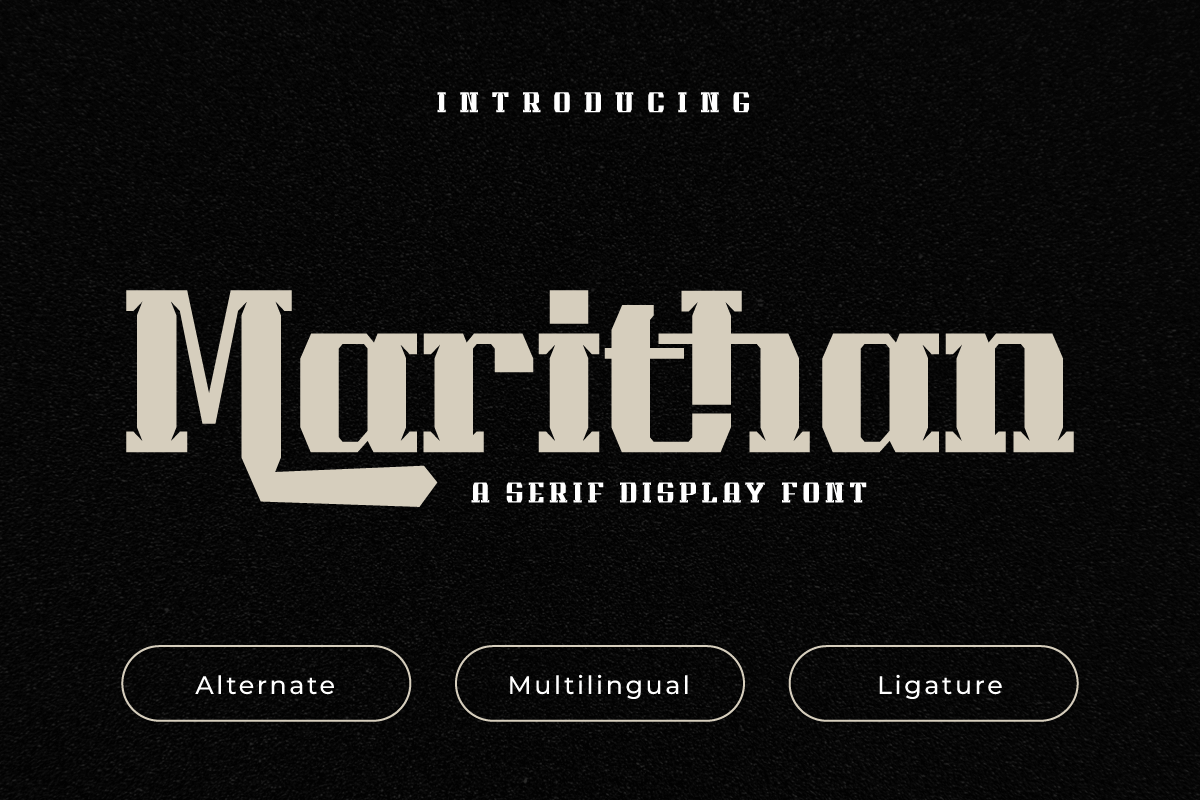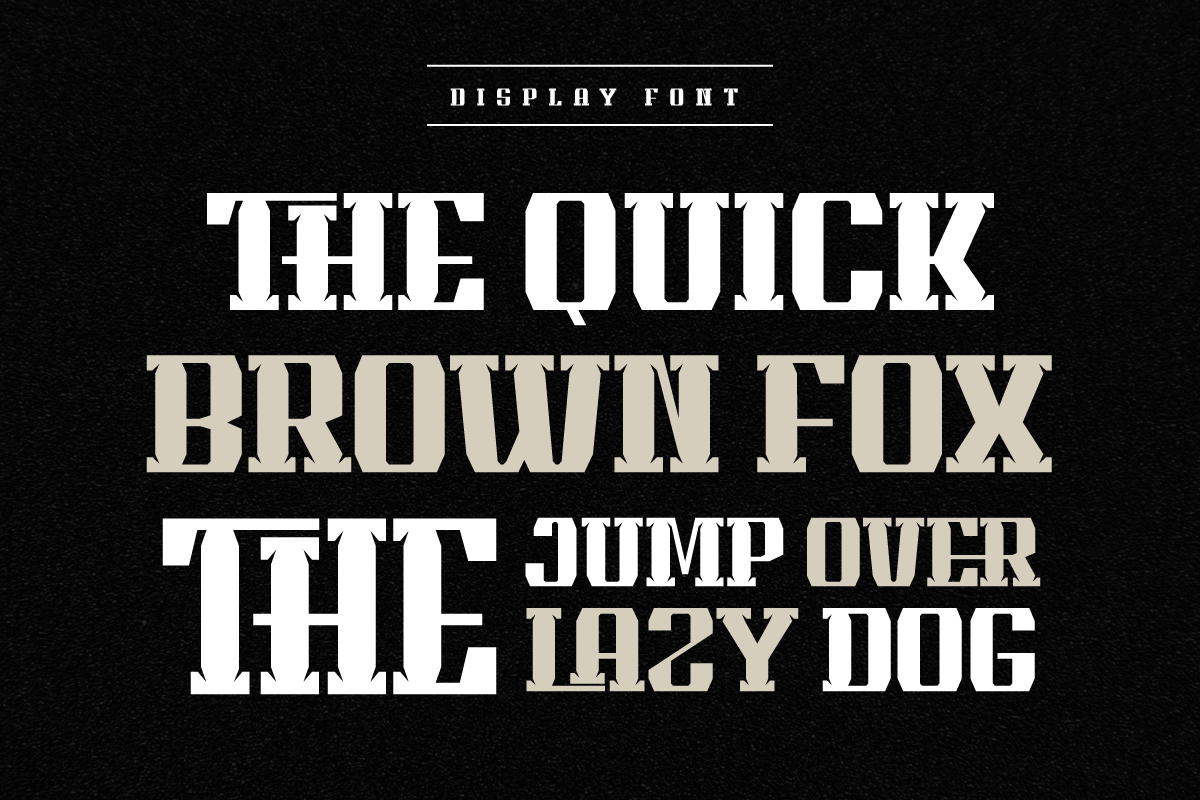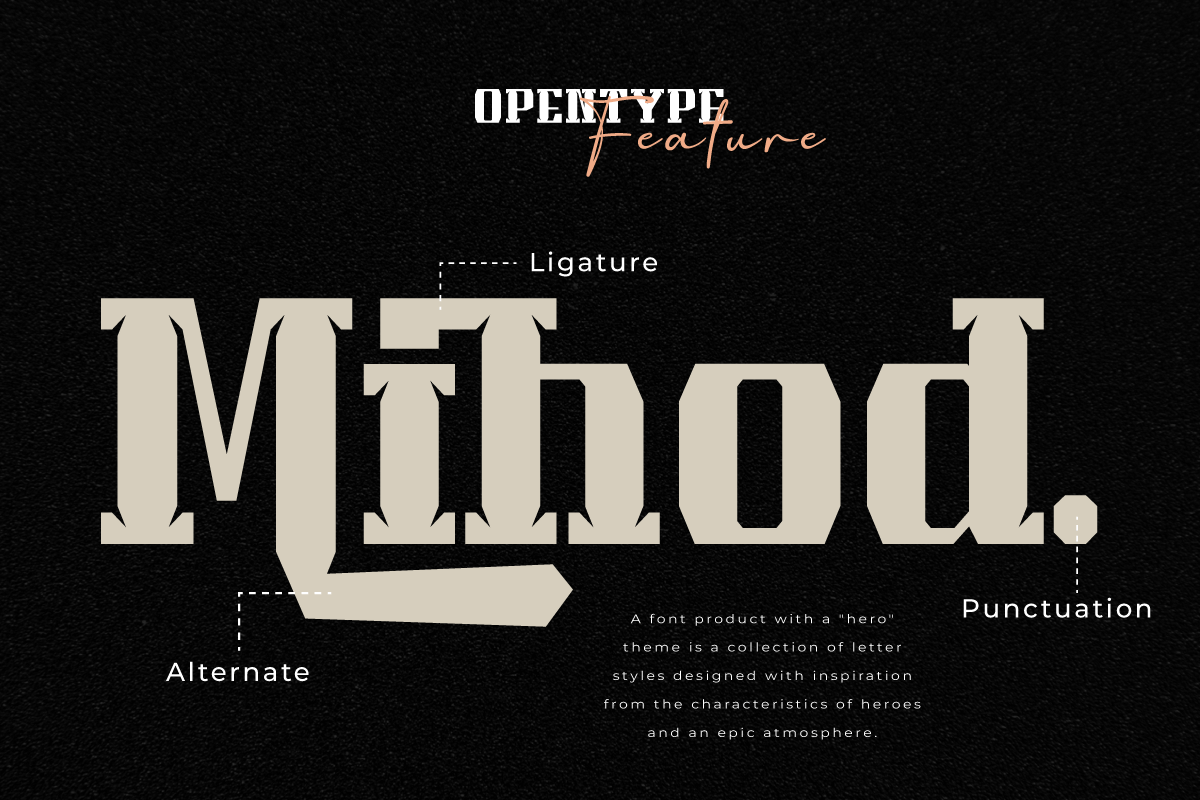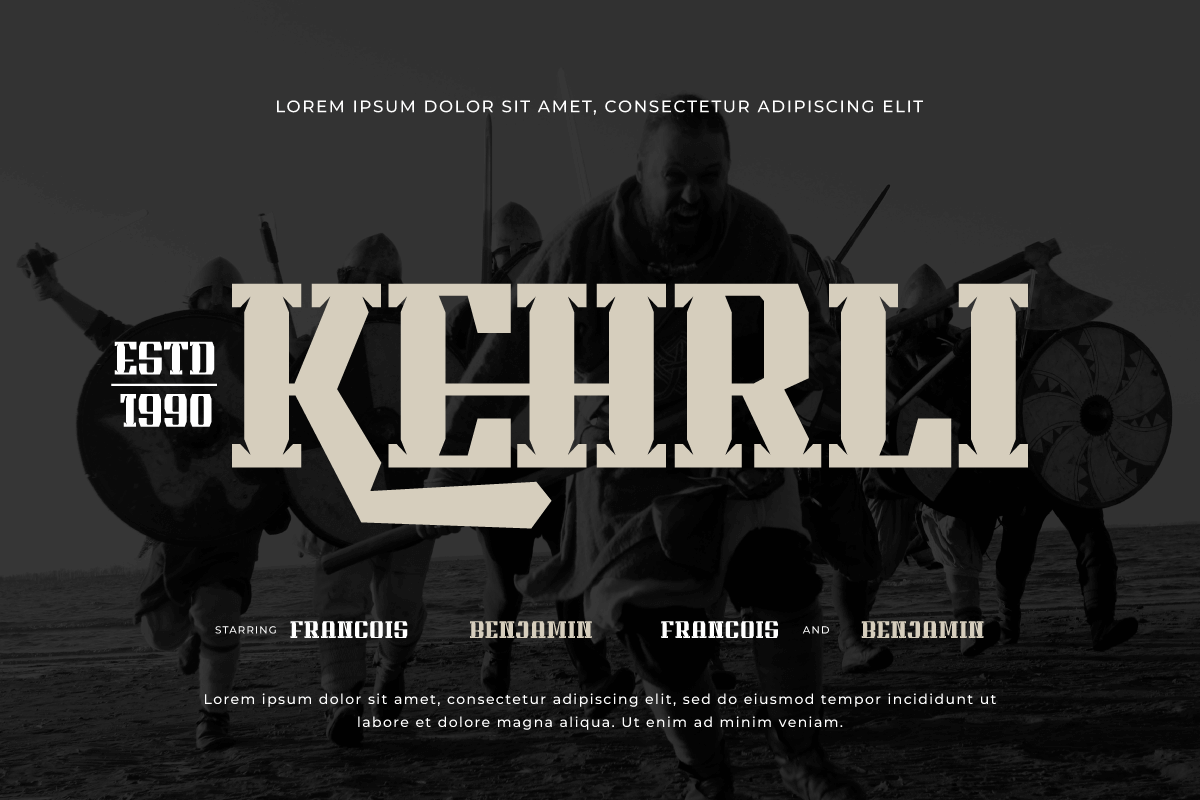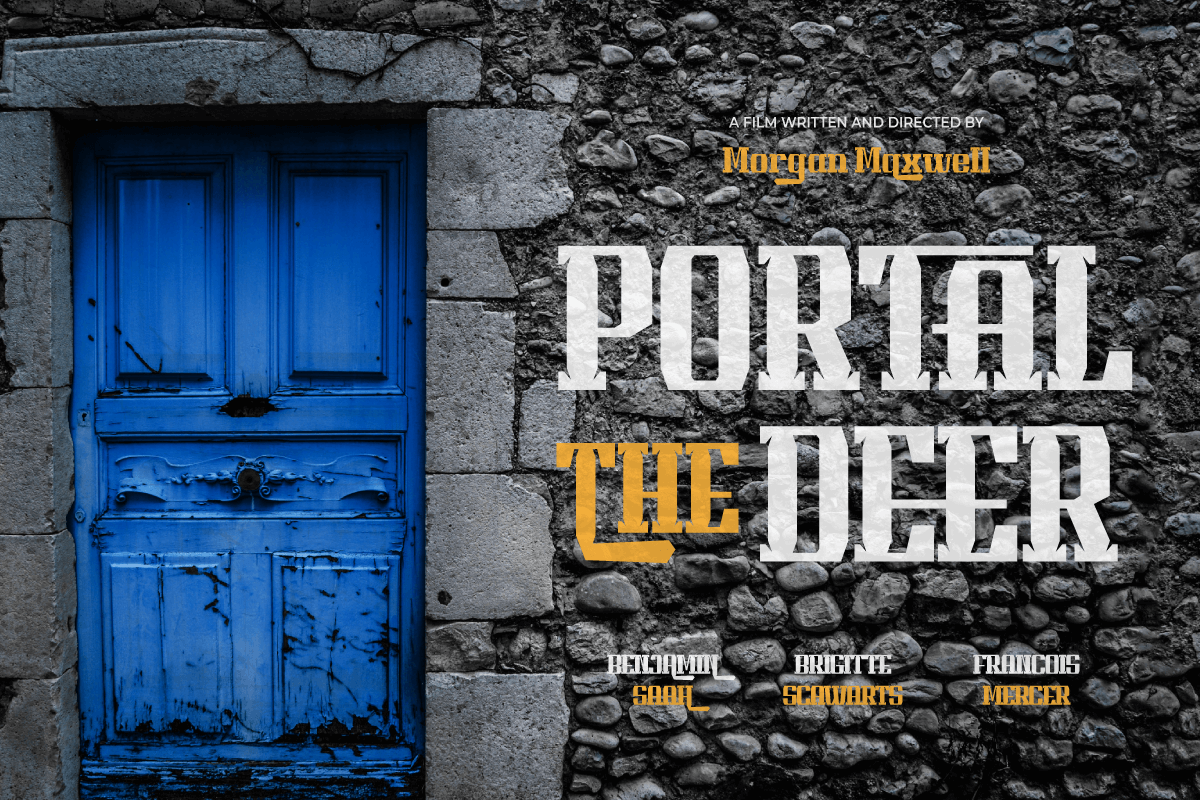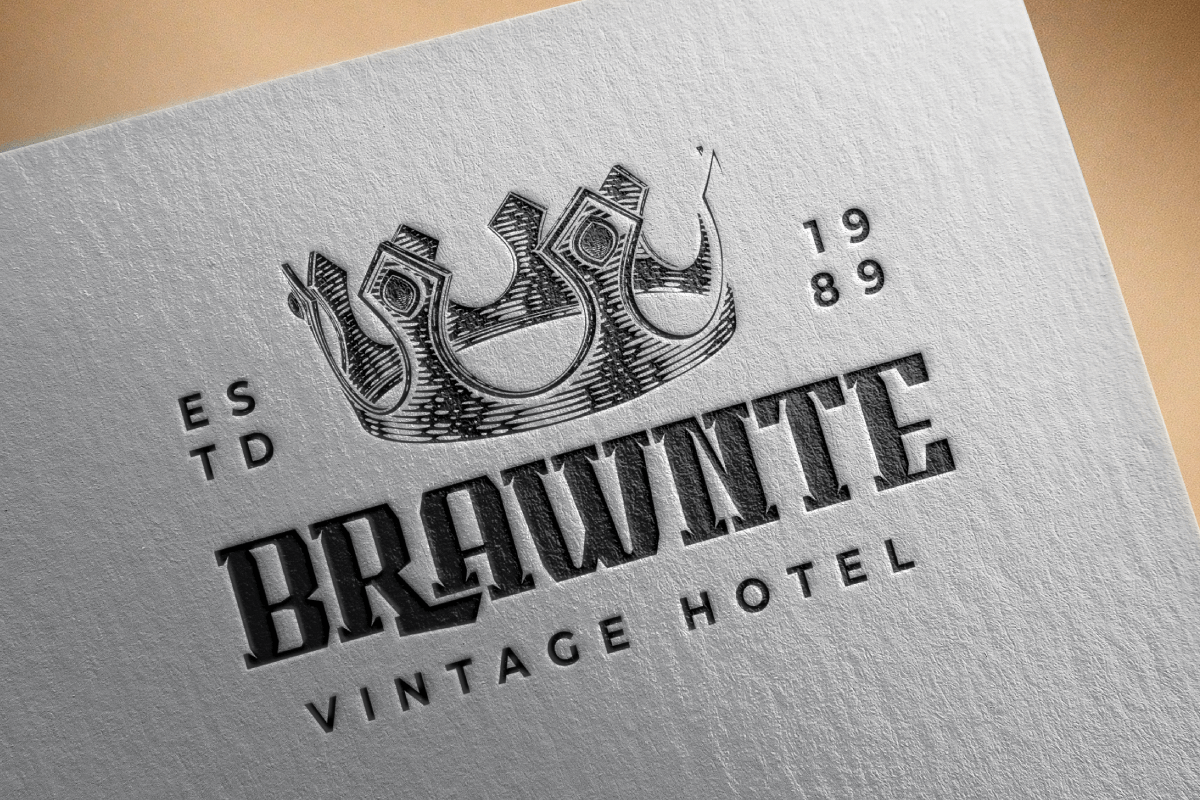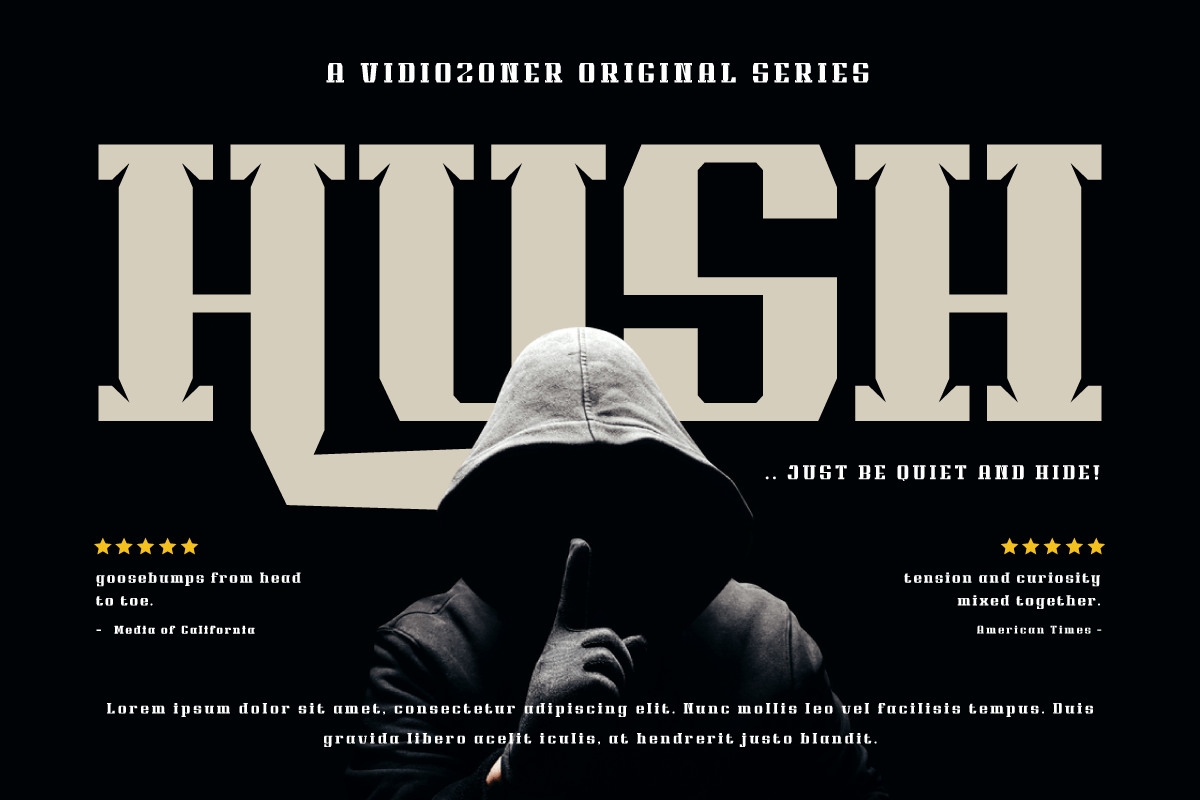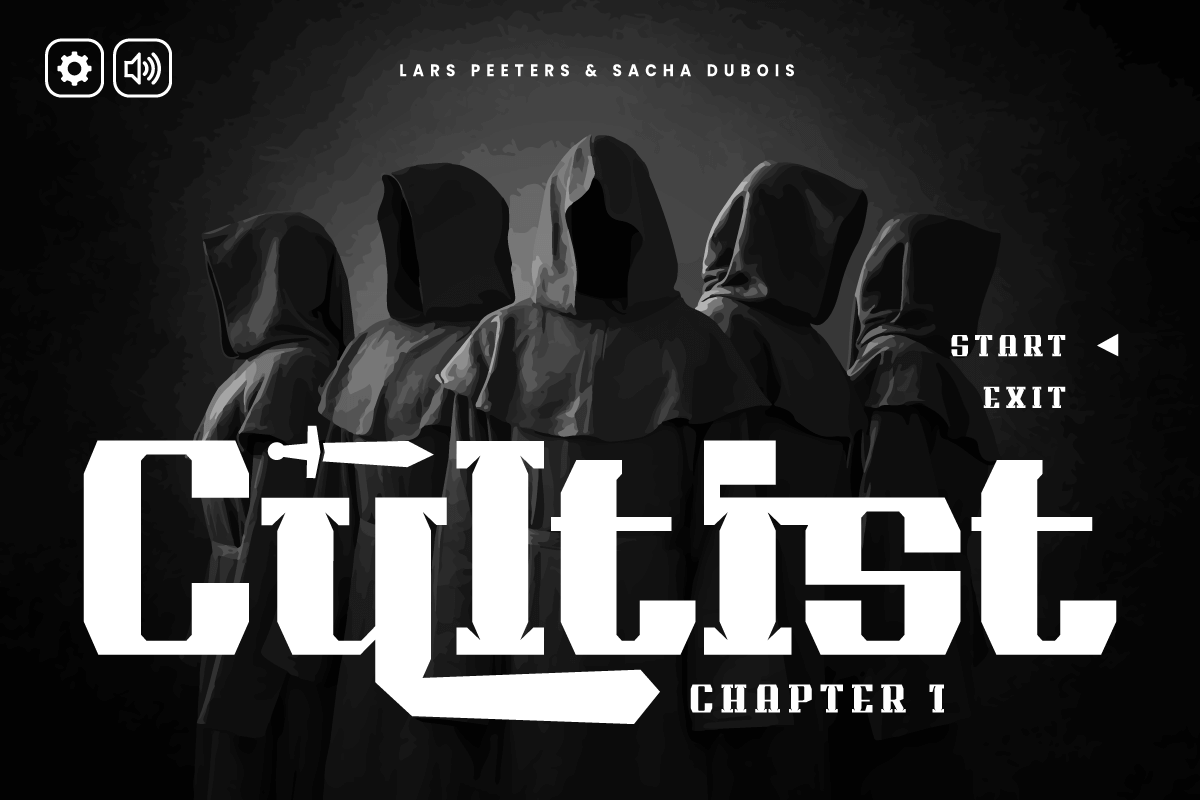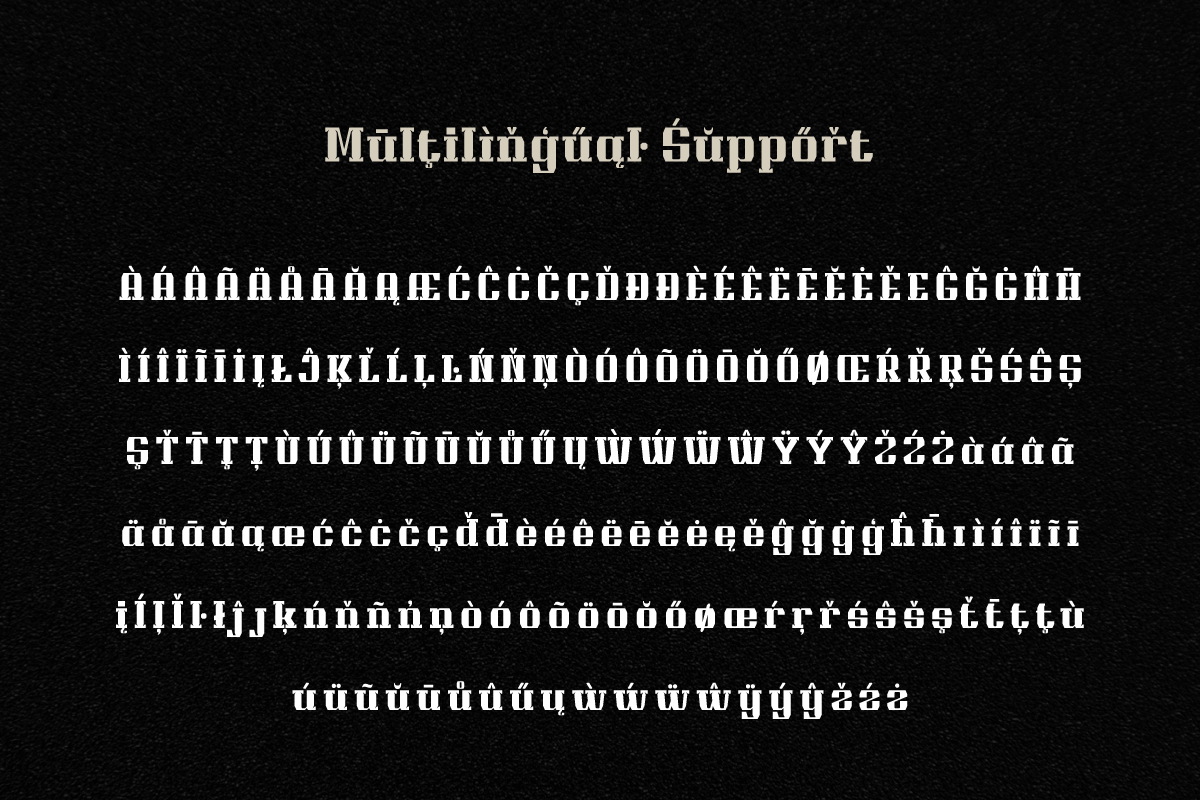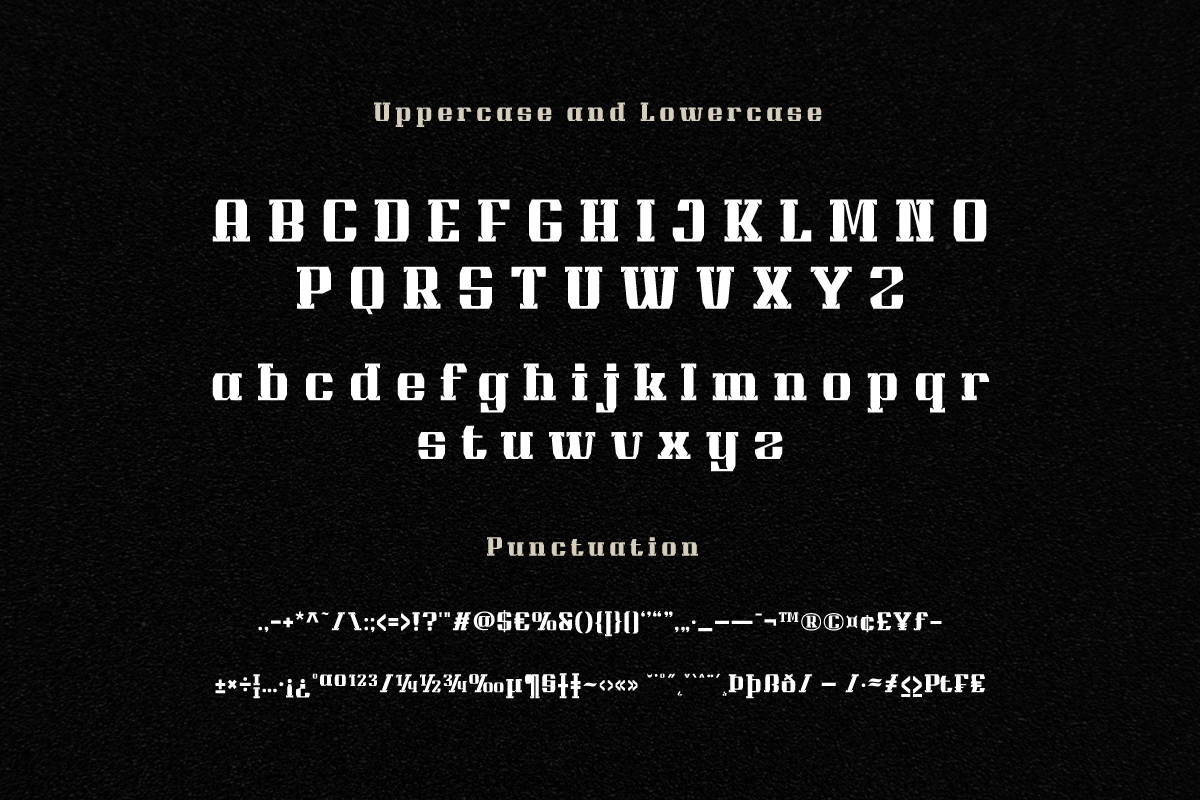
5. Marithan | Display Hero Font
Marithan | Display Hero Font
With Marithan, every character is a hunk of hero inspiration. This superhero-style display font is the answer for projects that need great visual flair.
Marithan brings your film, game, and design projects to life with unparalleled appeal. Her bold and bold display style lends a heroic spirit to every design element.
Enjoy unlimited creativity with special features such as ligature and alternate. You can create unique and amazing variations, bringing a completely different look.
This font also supports multiple languages and cultures with its multilingual feature. It’s the perfect way to connect and communicate with a global audience.
Marithan is an indispensable choice for projects that require a heroic touch. If you want to bring extraordinary visual power, Marithan is your constant companion. Launch your projects to the heights of audacity with Marithan today.